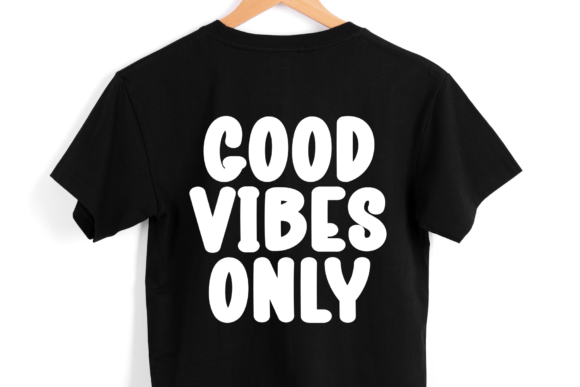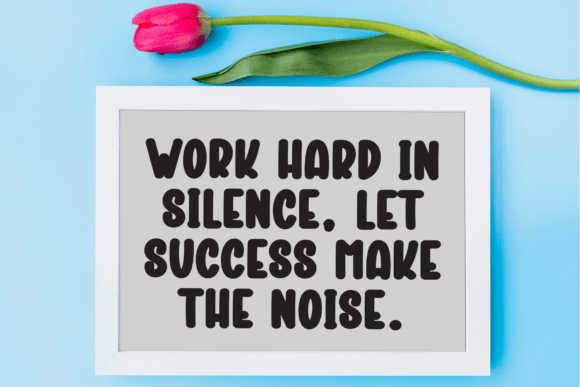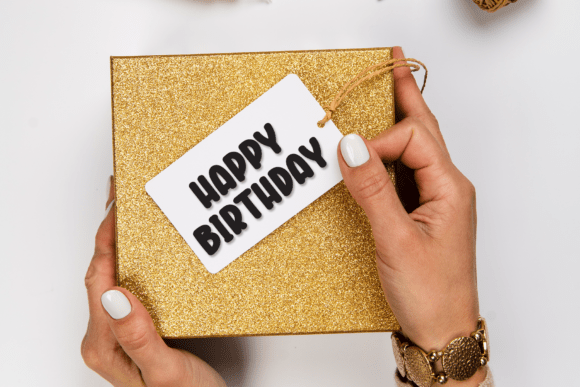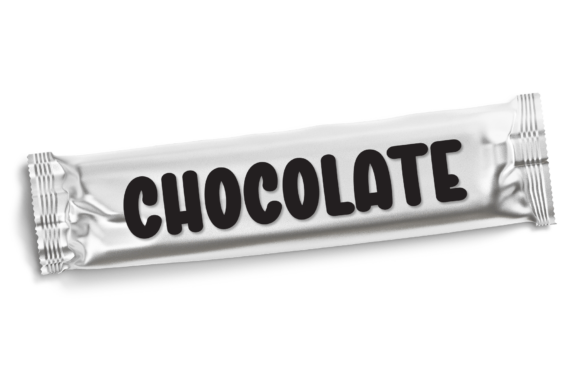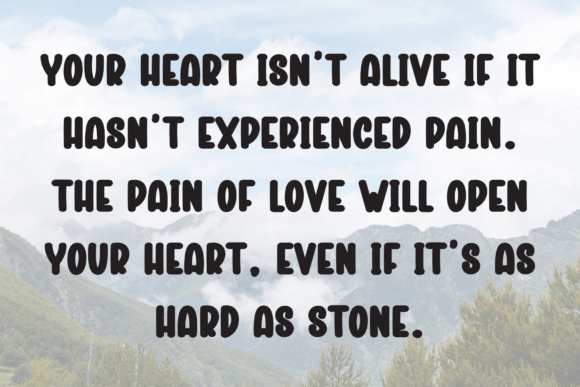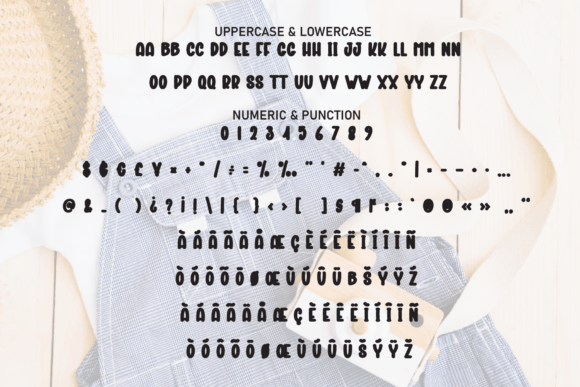
Designing for Little Ones: The Joy of Baby Cloothes Font
Who hasn’t felt the rush of creativity when planning a nursery or designing adorable baby clothes? For designers, there’s nothing quite like bringing a little one’s personality to life through art and typography. And now, with the introduction of Baby Cloothes Font, the excitement just got a whole lot bigger!
Baby Cloothes Font is a vibrant, playful style designed specifically for children’s apparel branding, nursery decor, and festive event invitations. Its perfect balance of bold weight and friendly personality makes it the perfect addition to any design project. Whether you’re creating adorable onesies or whimsical party invitations, this unique font is sure to bring a smile to the face of both kids and adults alike.
Baby Cloothes Font Key Features
- Font Family: A unique, custom-designed font specifically for baby clothing and related products.
- Unique Characteristics: The font features soft, rounded shapes and cute details, perfect for creating a playful and endearing look on baby clothing and accessories.
- Characters and Glyphs: The font includes a wide range of characters, including uppercase and lowercase letters, numbers, and special symbols, making it suitable for various applications.
Designer Review: Baby Clothes Font
Overall, I think Baby Clothes Font is a cute and playful font. Here’s a breakdown of what works well and what doesn’t:
- Custom characters and decorations add a lot of personality to the font.
- It’s well-suited for baby-related projects, such as nursery decor, baby clothing, and accessories.
- The font is easy to read, even at smaller sizes.
- There are many different styles and variations to choose from.
- The font might be too childish for some projects, such as corporate or formal designs.
- The characters and decorations can be overwhelming if used too extensively.
- Some characters may not be as smooth or detailed as others.
While Baby Clothes Font has its limitations, I think it’s a great choice for projects that require a playful, whimsical feel. It’s perfect for baby-related designs, and the customization options are a big plus. However, it may not be the best fit for more formal or corporate projects.
To get the most out of the Baby Clothes Font, try using it for:
1. Creating adorable baby announcements and invitations.
2. Designing baby shower decorations and party materials.
3. Creating custom baby clothing labels and tags.
The Baby Clothes Font is commonly used for:
1. Baby clothing and accessories.
2. Baby shower and party decorations.
3. Personalized baby gifts and mementos.
Alternative Baby Font Options for Designers
Pacifico is a beautiful, elegant script font that can add a touch of sophistication to baby clothing designs. It is ideal for creating a high-end, luxurious feel and is perfect for designers who want to create a more mature and stylish aesthetic. Compared to Baby Cloothes Font, Pacifico is more versatile and can be used for a wide range of designs, from clothing to accessories.
Great Vibes is a fun, modern script font that is perfect for creating a playful and energetic vibe on baby clothing designs. It is ideal for designers who want to add a touch of whimsy and fun to their designs. Compared to Baby Cloothes Font, Great Vibes is more playful and energetic, making it perfect for younger audiences.
Carolyna Pro is a elegant, modern script font that is perfect for creating a sophisticated and stylish aesthetic on baby clothing designs. It is ideal for designers who want to create a high-end, luxurious feel without being too over-the-top. Compared to Baby Cloothes Font, Carolyna Pro is more elegant and refined, making it perfect for designers who want to create a more mature and sophisticated look.